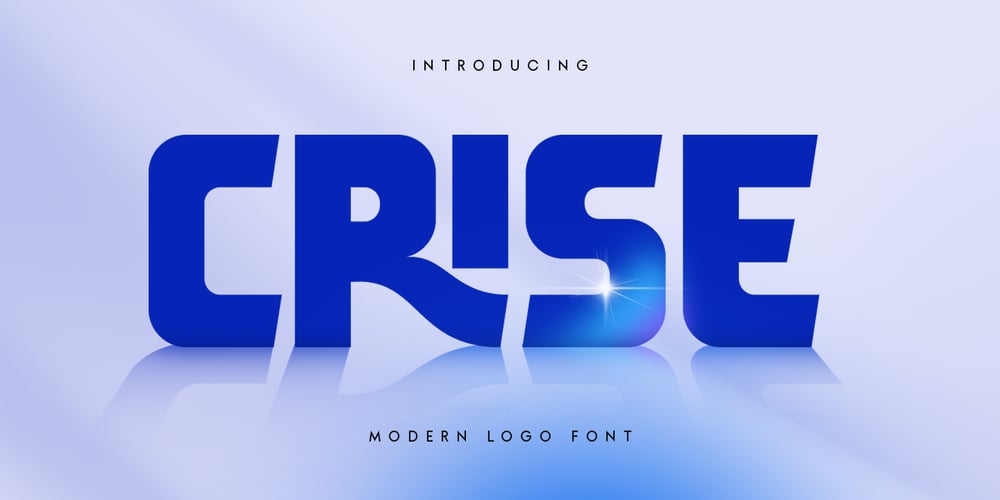
Crise SS Font Family was designed by Zamroni Hamzah and published by Sensatype Studio. Crise SS contains 2 styles and family package options. CRISE SS is a modern logo font designed to elevate your brand with its sleek and professional design. Inspired by contemporary aesthetics, CRISE SS combines clean lines and elegant curves to create a font that is both stylish and versatile. Perfect for logo design, branding materials, and any project that requires a modern touch, CRISE SS ensures your designs are both eye-catching and memorable. The story behind CRISE SS is rooted in the need for a font that captures the essence of modernity while providing flexibility for various design needs. Crafted with precision, CRISE SS is the result of meticulous design work aimed at creating a unique and dynamic font that stands out in any context. Whether you are working on a logo, website header, or advertising campaign, CRISE SS offers the perfect balance of elegance and functionality. Its modern design makes it suitable for creative professionals looking to add a touch of sophistication to their projects. With CRISE SS, you can achieve a polished and contemporary look that enhances the visual appeal of your brand. Elevate your designs with CRISE SS and make a lasting impression with this modern logo font.CRISE SS Modern logo font ready with: Any options to get creative variations with unique letters 4 files format already Preview as a inspirations that you can do with this font Ready with Lowercase and Uppercase characters Modern design & Versatile for various projects Ideal for logos and branding Stylish and professional will enhances visual appeal Discover the elegance and versatility of CRISE SS, the modern logo font that transforms your brand’s identity.